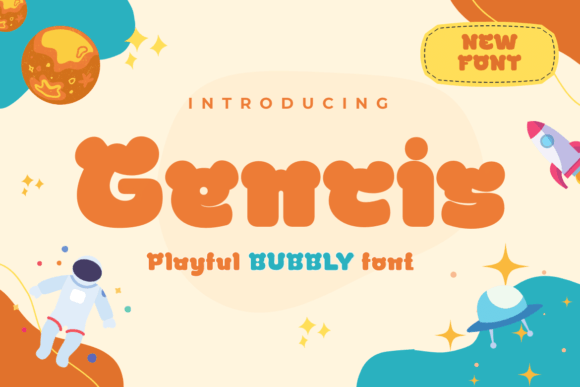
Discover the Charm of Gencis Font: Elevate Your Design Projects with a Playful Twist
Are you on the hunt for a font that injects a dose of fun and playfulness into your design projects? Look no further than the Gencis Font. This delightful typeface is designed to bring a smile to your audience’s faces while making your content stand out. With its funny, cute, attractive, and playful shape, Gencis Font is the perfect addition to any creative endeavor. Whether you’re working on a news article, a website, or promotional materials for your company, this font is sure to make your project shine.
One of the standout features of Gencis Font is its incredible versatility. You can use it in a variety of contexts to add that extra special something to your designs. Here are just a few ideas to get you started:
- News Articles: Use Gencis Font as the title of your news article to grab attention and set the tone for a fun and engaging read.
- Website Elements: Add a playful touch to your website’s search button or headings to make user interaction more enjoyable.
- Promotional Materials: Incorporate Gencis Font into your subtitles and titles in visual media to promote your company with a fresh and modern look.
- Design Projects: From brochures and posters to digital media and presentations, Gencis Font can be used to add a playful twist to any design project.
Why Choose Gencis Font?
Gencis Font is more than just a typeface; it’s a design solution that offers a range of benefits. Here are some reasons why designers and crafters are falling in love with Gencis Font:
- Unique Character: Its funny, cute, attractive, and playful shape sets it apart from more traditional fonts.
- Font Family: Gencis Font comes equipped with a comprehensive font family. This means you have access to a variety of styles suitable for titles, subtitles, and sentence text, ensuring consistency across your design projects.
- Enhances Creativity: With Gencis Font, you can let your creativity shine. It’s perfect for projects that require a bit of whimsy and personality.
- Easy to Read: Despite its playful nature, Gencis Font remains clear and easy to read, making it suitable for both digital and print media.
Gencis Font is a game-changer for designers and crafters looking to add a playful and unique touch to their projects. Its versatility, combined with its charming and attractive design, makes it an excellent choice for a wide range of applications. Whether you’re working on a professional project or a personal passion project, Gencis Font can help you achieve that extra special something that sets your work apart. So why wait? Start exploring the possibilities with Gencis Font today and take your designs to the next level.